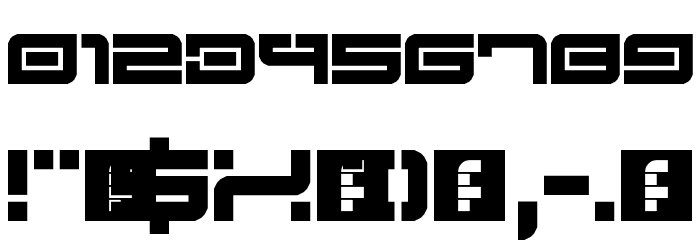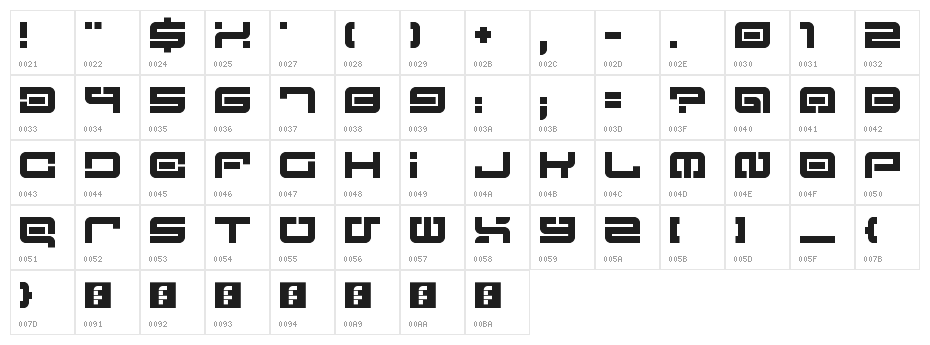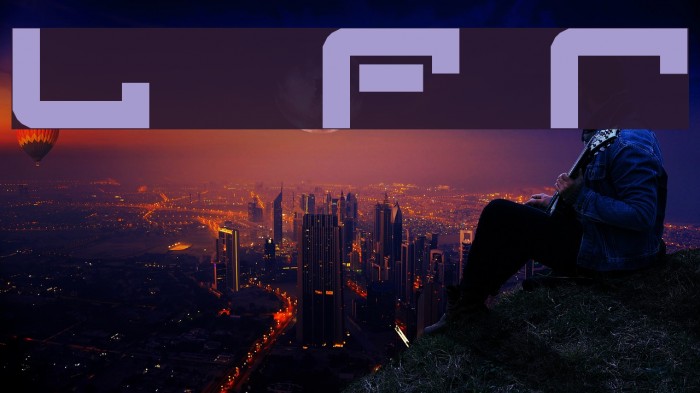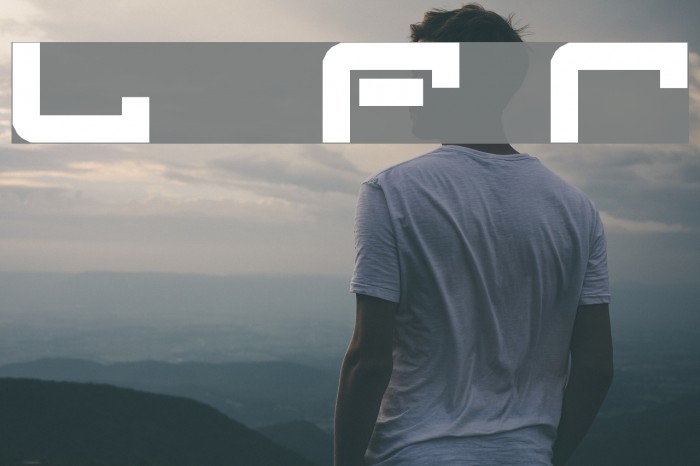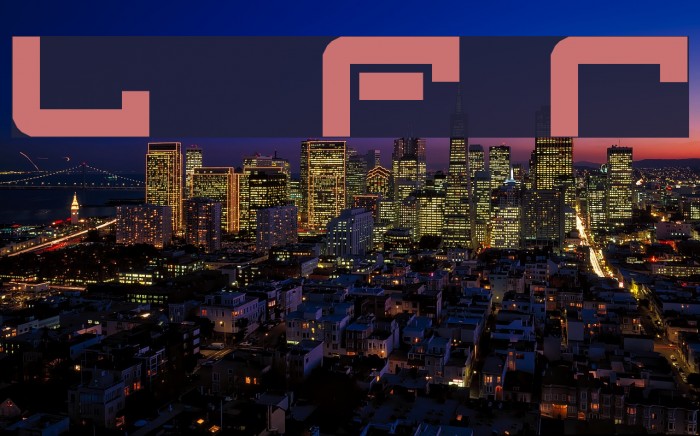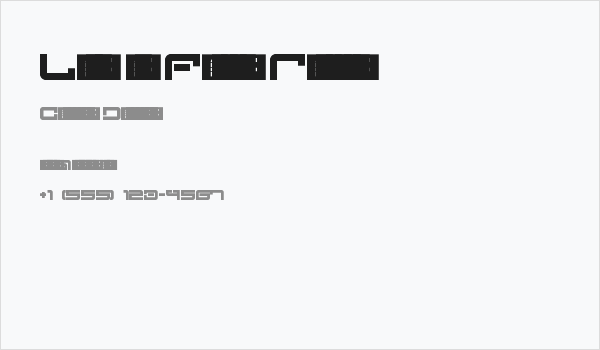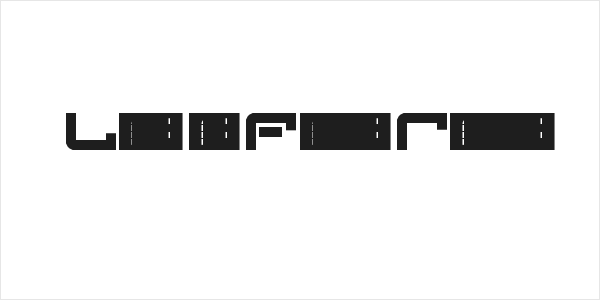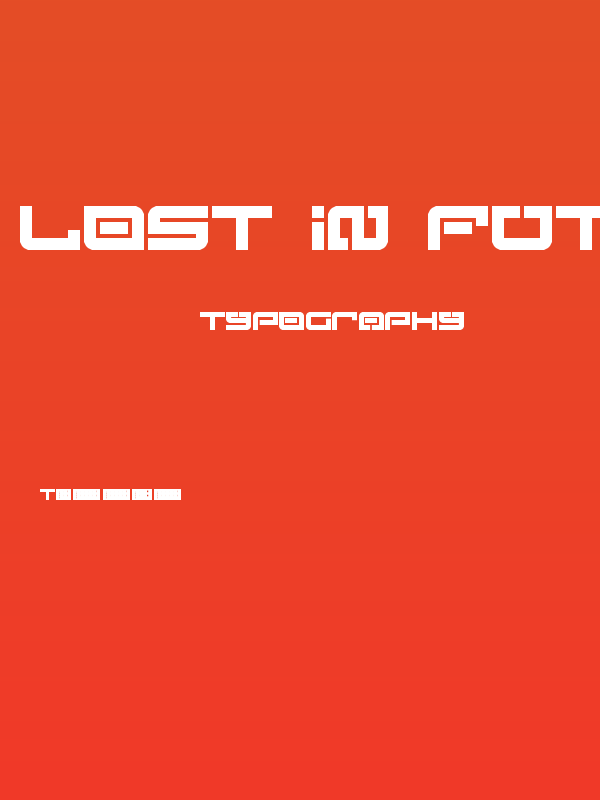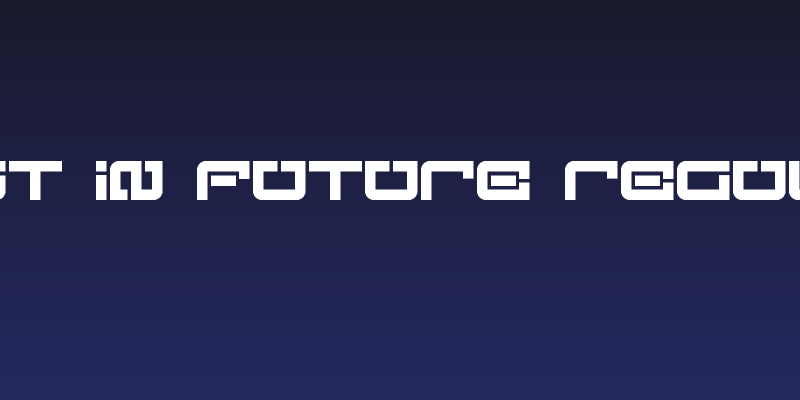
Lost in Future Regular Font
Lost in Future Regular Description
This font features a futuristic and geometric design, characterized by its bold and blocky letterforms. Each character is constructed with a consistent width, giving it a monospaced appearance, while the angular and squared-off edges contribute to its modern aesthetic. The font's design is reminiscent of digital or sci-fi themes, making it suitable for projects that require a tech-savvy or avant-garde look. The uppercase and lowercase letters maintain a uniform style, with minimal variation in stroke width, creating a cohesive and structured appearance. The numerals and special characters follow the same design principles, ensuring visual harmony across all elements.
| Proposed Projects | Ideal for tech-related branding, sci-fi themed posters, video game interfaces, and digital artwork. |